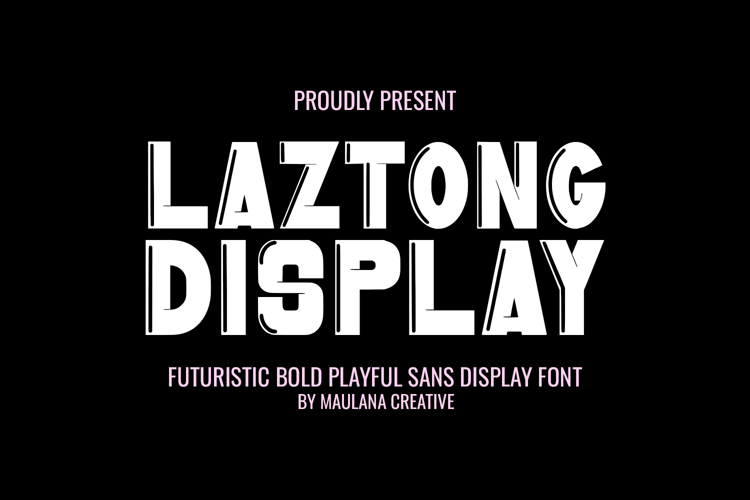
Laztong Futuristic Bold Playful Sans
Laztong Display is a bold, futuristic, and playfully designed sans serif font that demands attention. Crafted to embody the essence of the future, technology, and energetic club culture, Laztong features a unique split-line effect within its characters, giving it a distinctive, dynamic, and glitchy aesthetic.
Why Laztong is Your Next Must-Have Font:
- Futuristic and Edgy: Perfect for projects needing a modern, sci-fi, or cyber-punk vibe. Ideal for tech branding, gaming, and digital art.
- High Impact Display: The thick, uppercase letters ensure maximum visibility and impact, making it excellent for headlines, logos, posters, and album covers.
- Playful Glitch Effect: The inner-line break creates a cool, "in-motion" or "digital interference" look that sets your design apart.
- Versatile for Entertainment: From neon-lit disco flyers and midnight dance posters to robot-themed merchandise and powerful brand statements, Laztong brings life to your concepts.
This font is a powerhouse for:
- Logotypes & Branding (especially for tech, gaming, and urban fashion)
- Posters & Event Promotion (music, club nights, sci-fi movies)
- T-shirt Designs & Merchandise
- Video Titles & Social Media Graphics